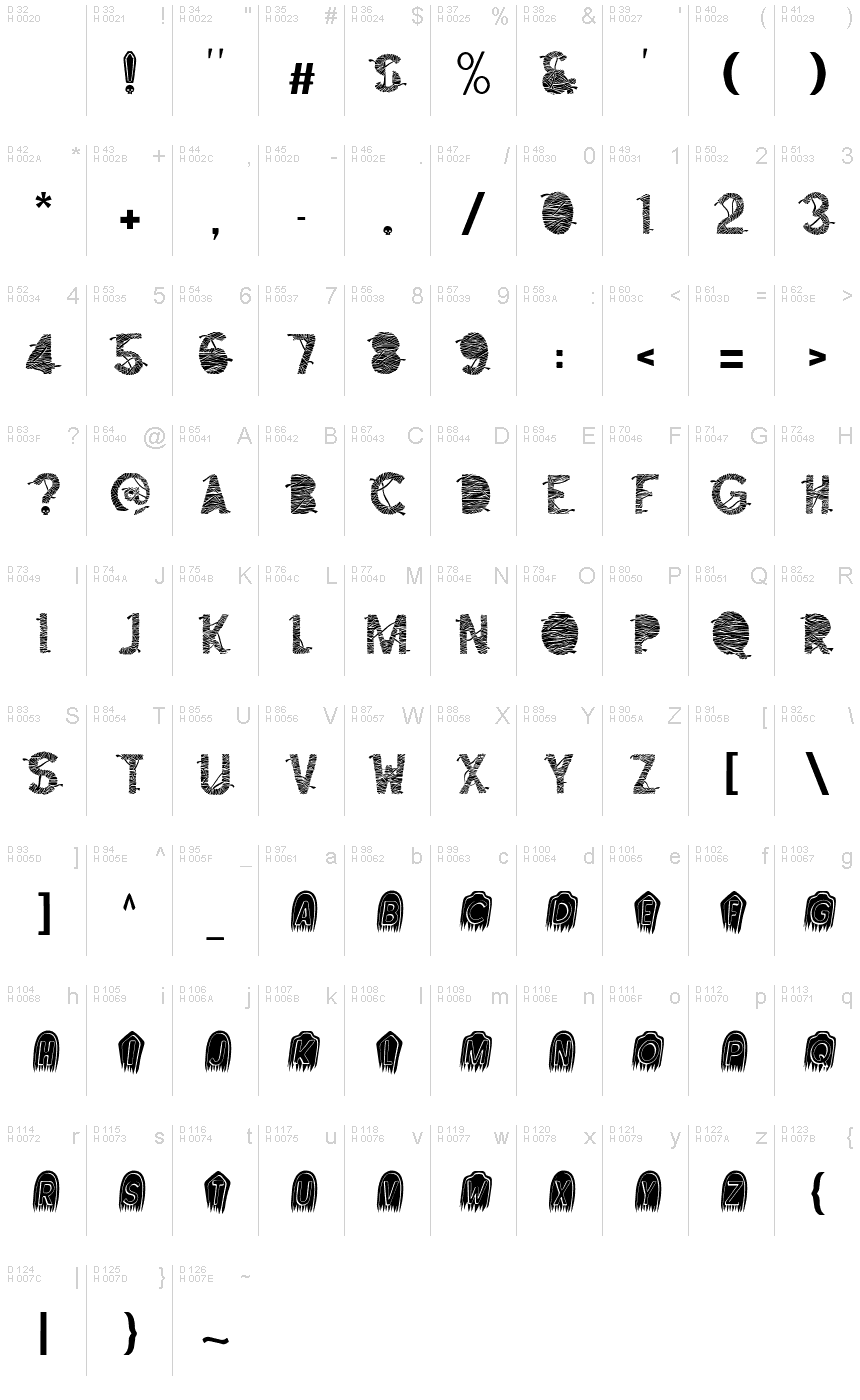
The Mummy R.I.P filling
The MUMMY R.I.P filling font is a thick-lettered and spooky decorative font designed by Tri Kuncoro. It is perfectly suitable for any Halloween-related project or crafty idea! The only limit is your imagination.